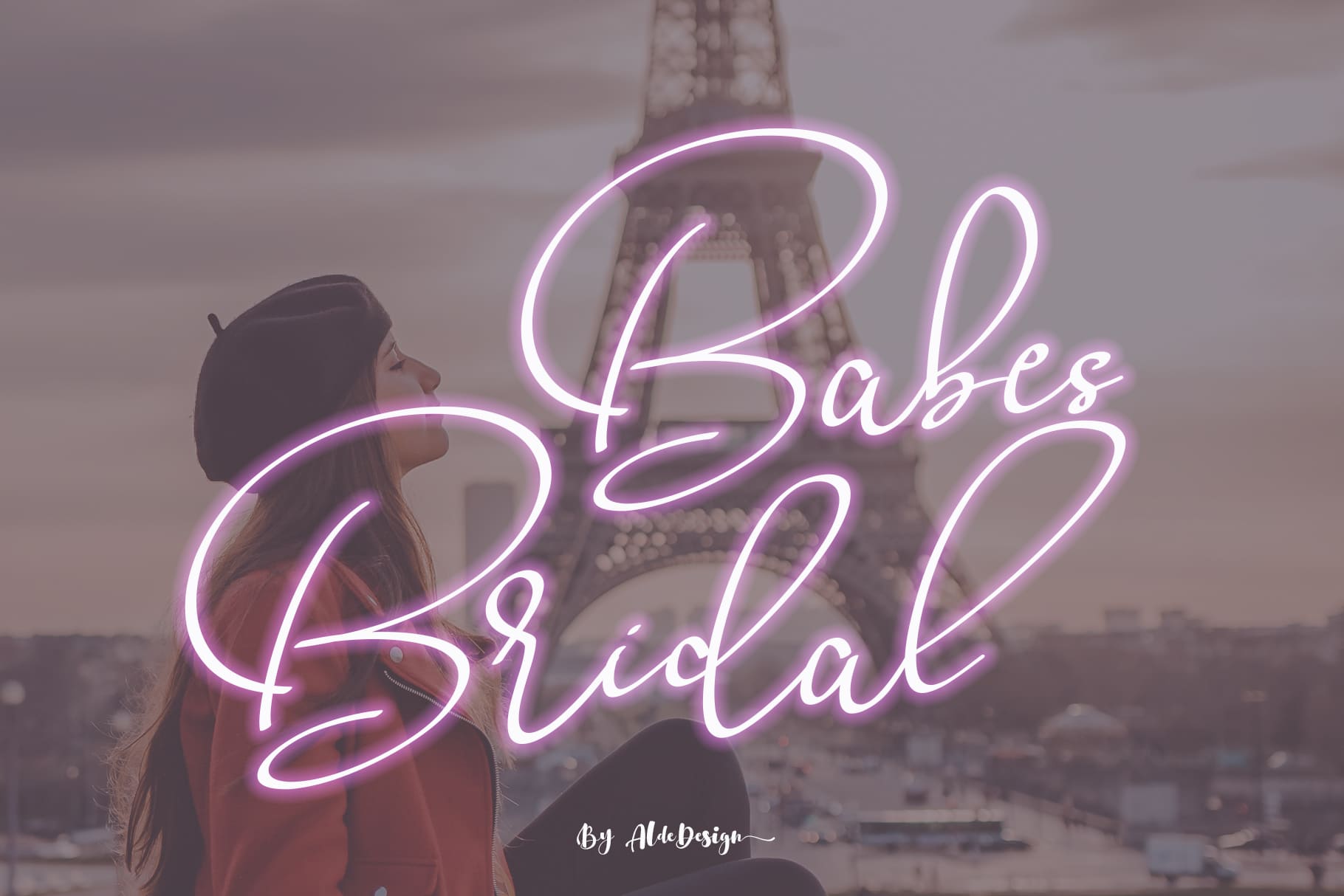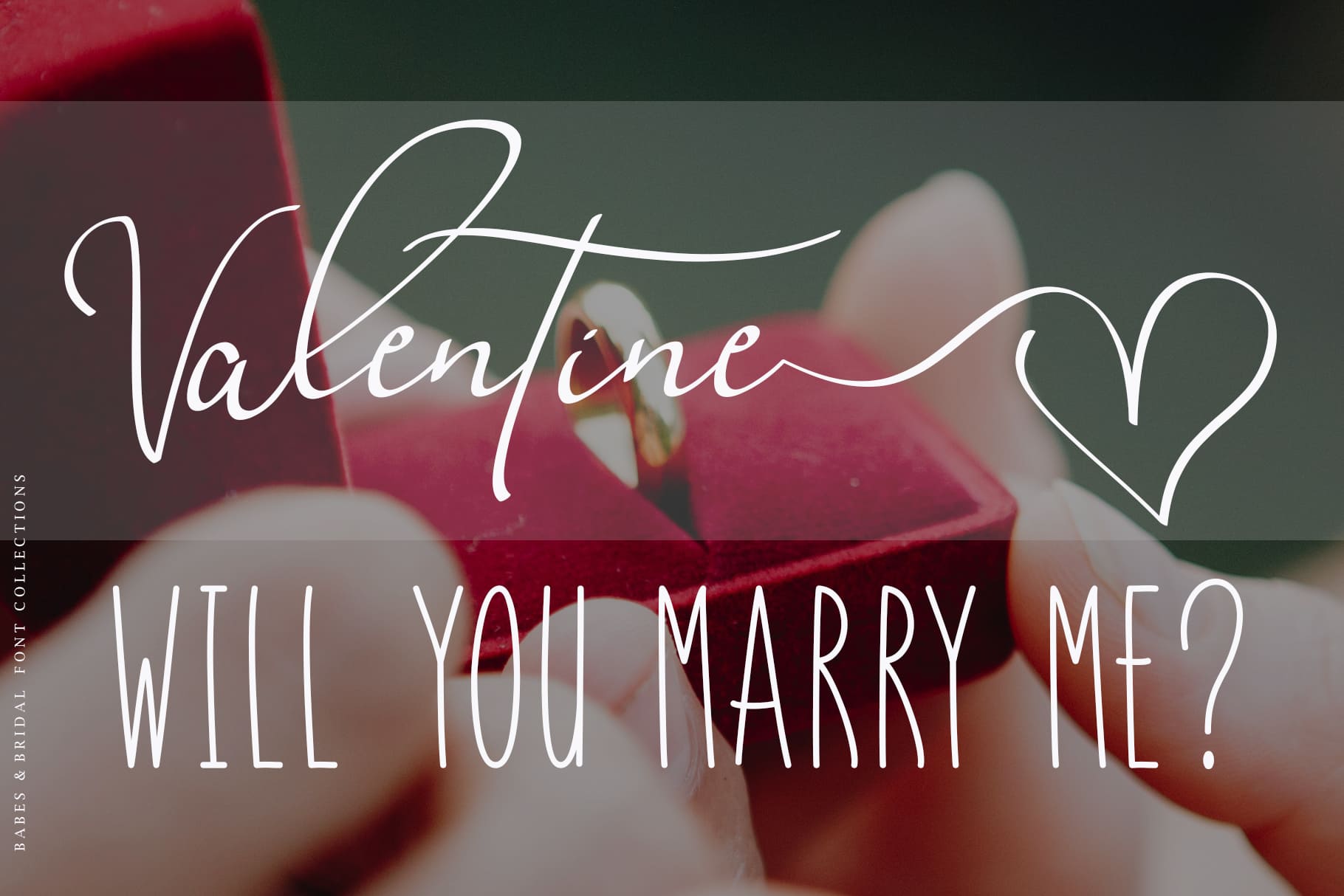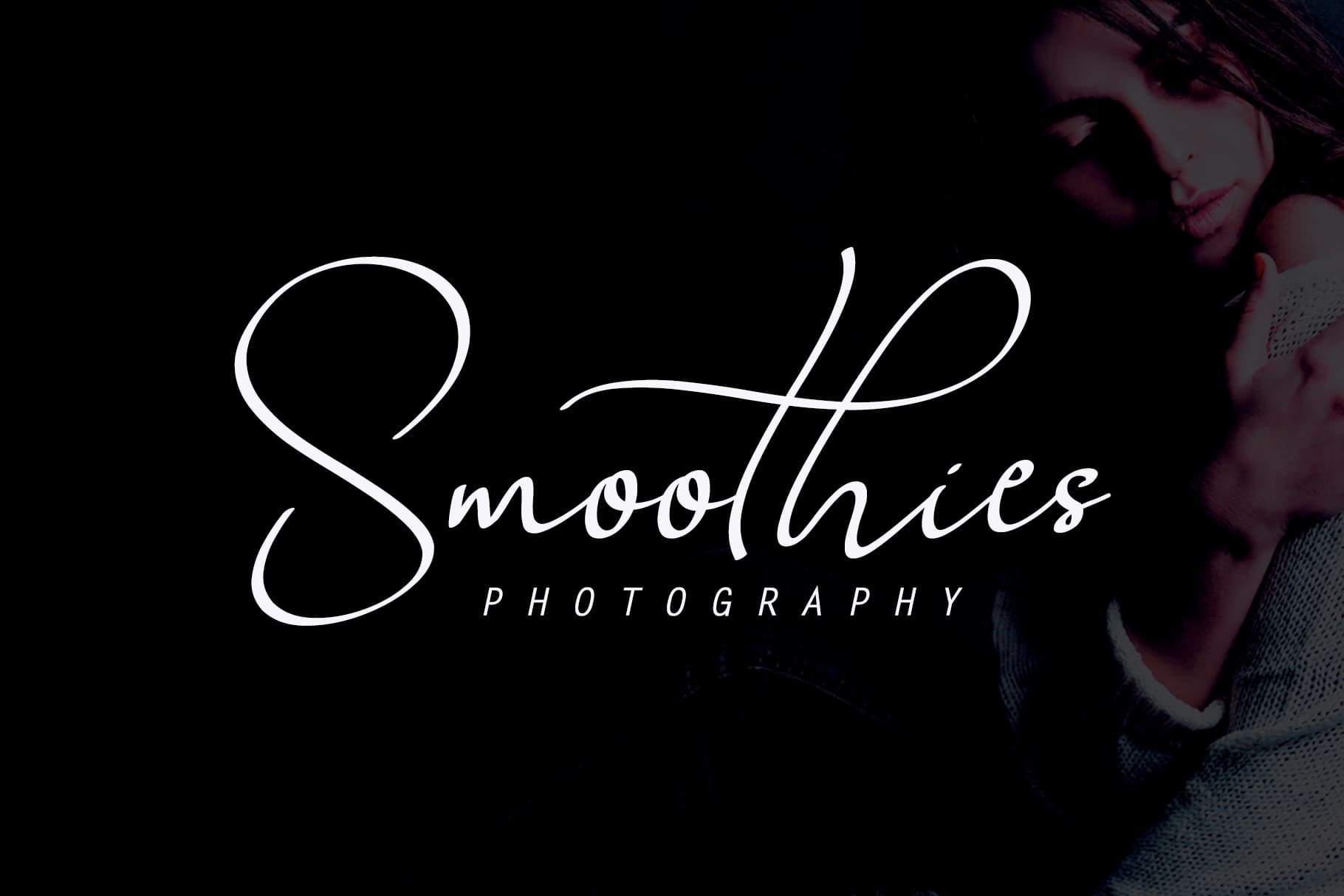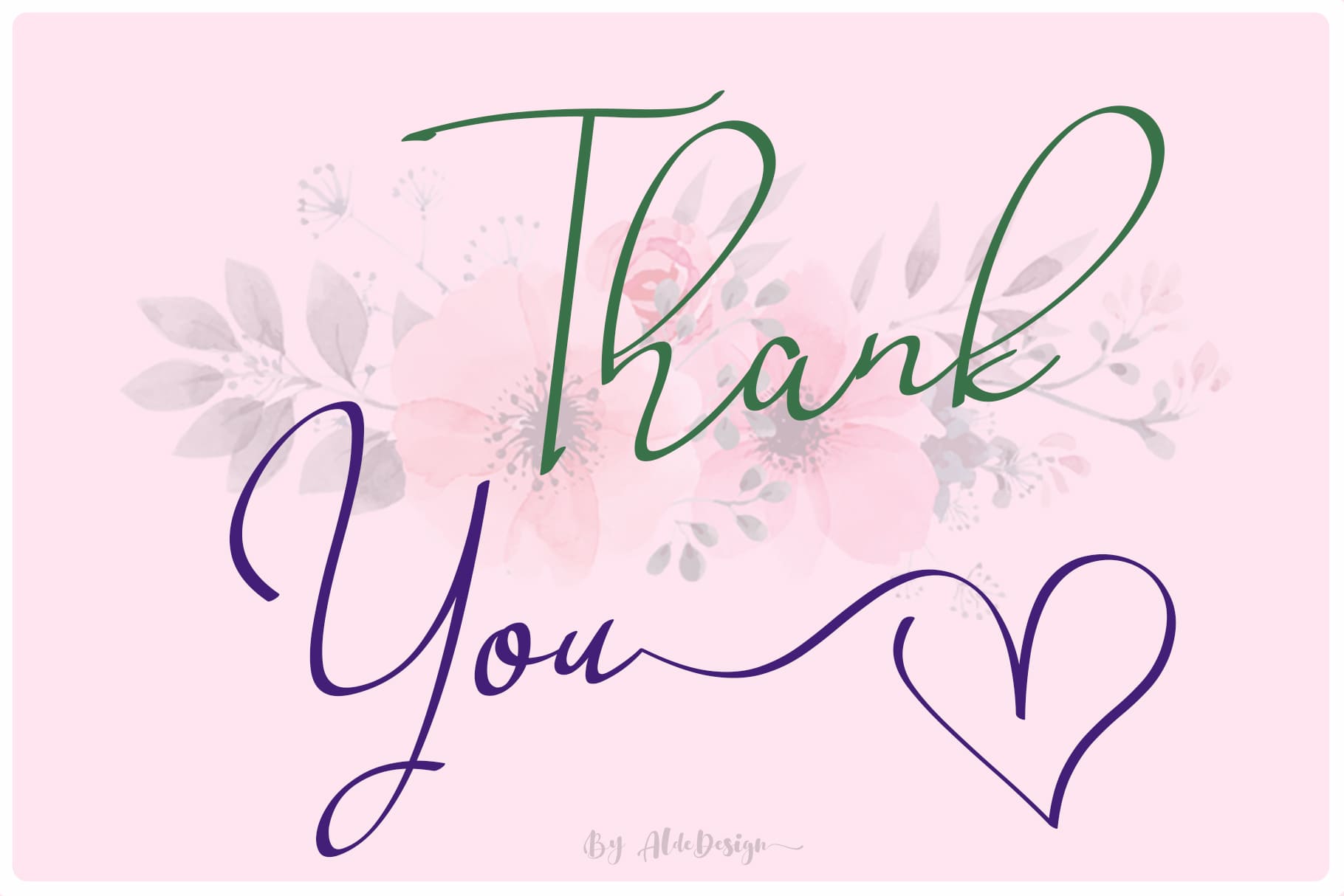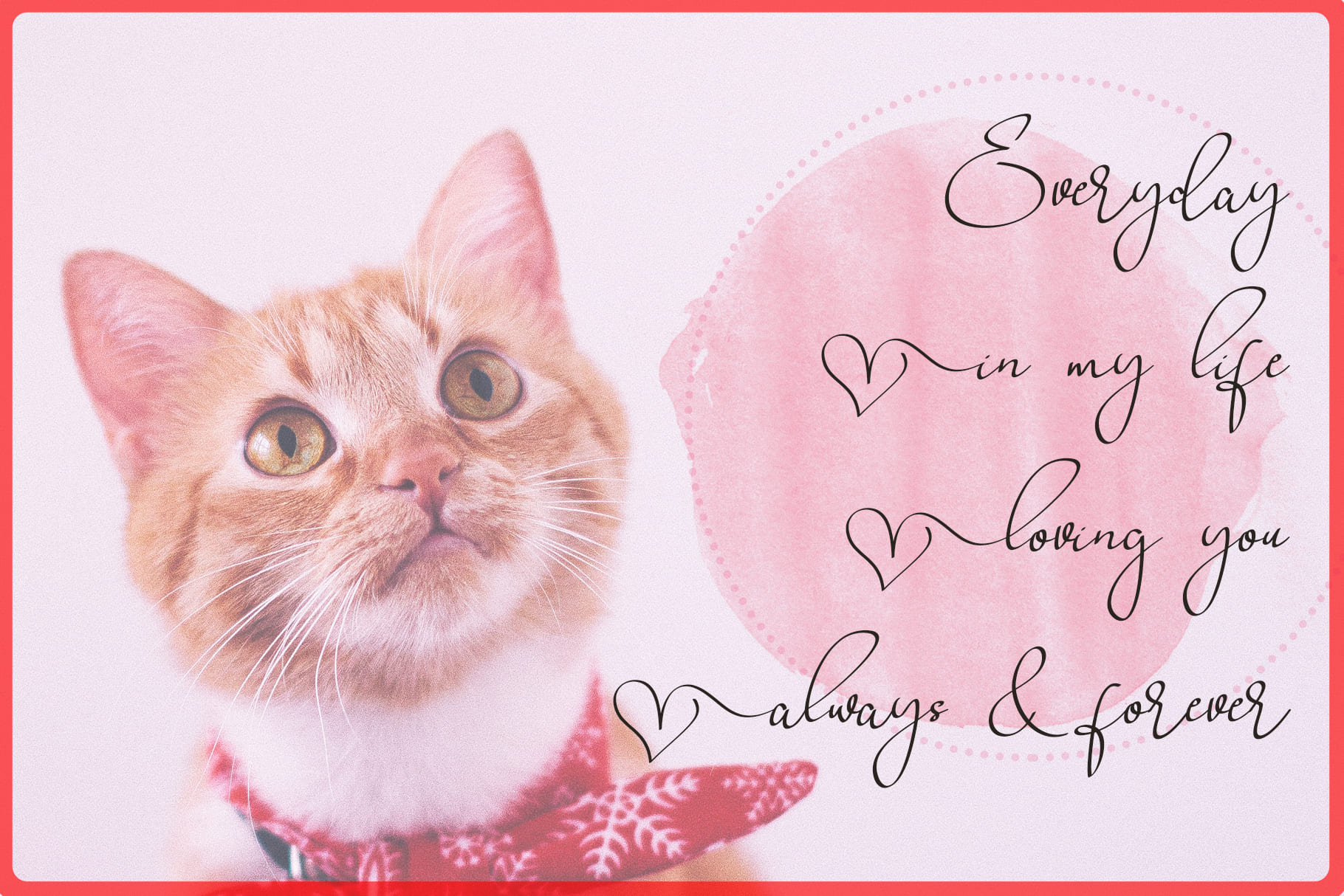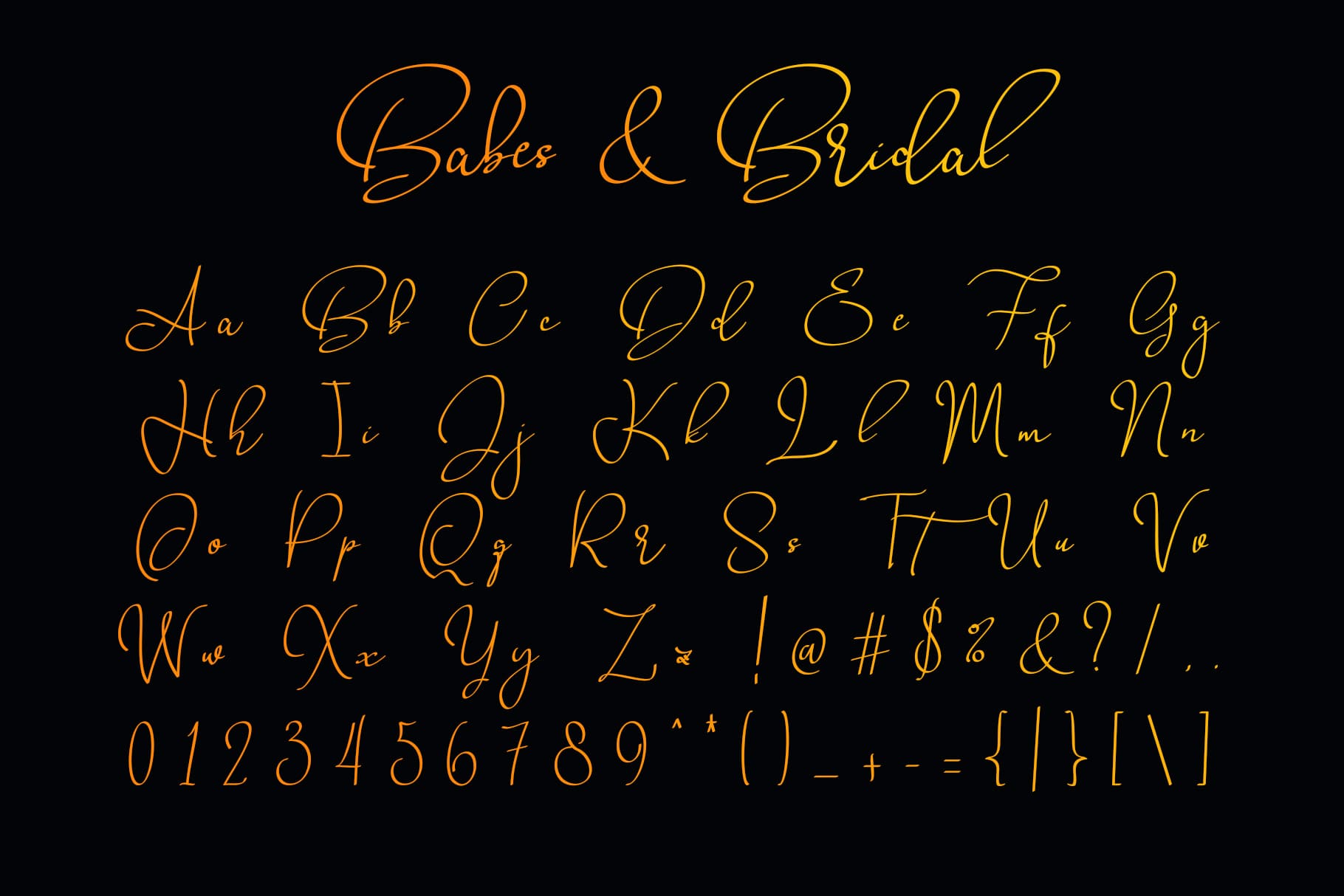
Babes & Bridal (1 font)
From AldeDesign
Babes & Bridal comes with a touch of love and modernity for your designs or branding and can be used for various design projects such as headings, weddings, invitations, signatures, logos, branding, t-shirts, letterhead, signage, news, posters, badges etc.